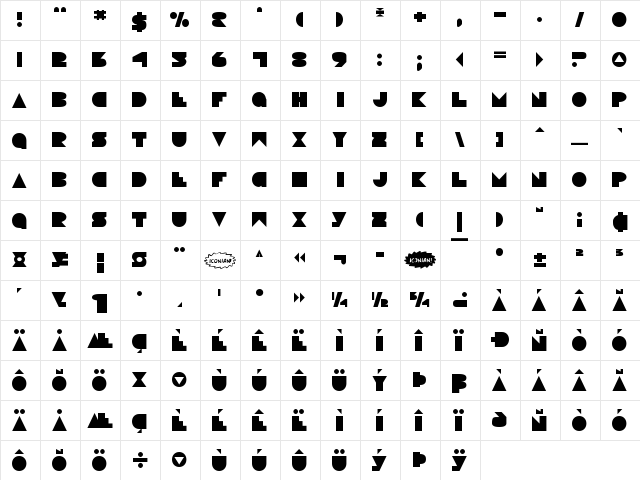
Disco Deck Regular Font Preview
Disco Deck Regular
Disco Deck Regular Font Details
Design Context for Disco Deck Typeface
Disco Deck is a composed and adaptable typeface that performs quietly and consistently across a wide range of design contexts.